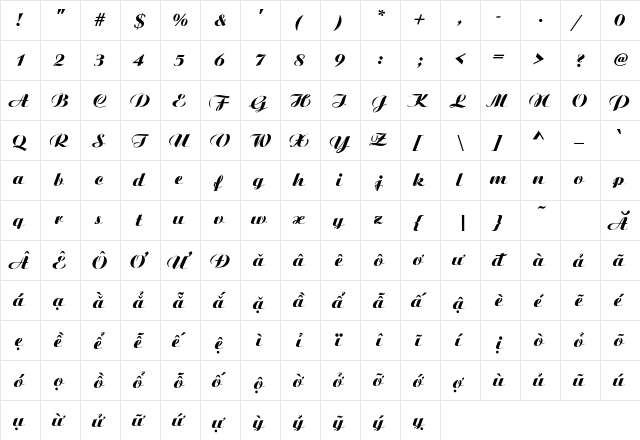
.VnAristote Medium
Design Context for .VnAristote Typeface
.VnAristote is a composed and adaptable typeface that performs quietly and consistently across a wide range of design contexts.